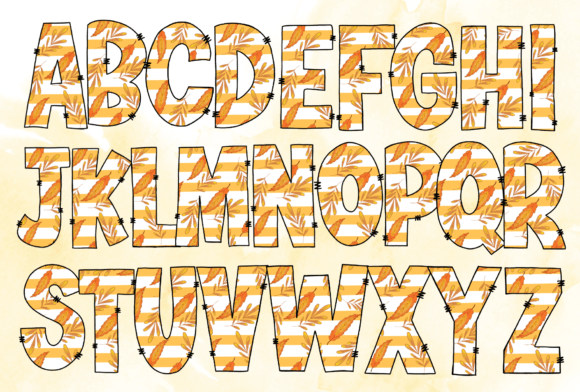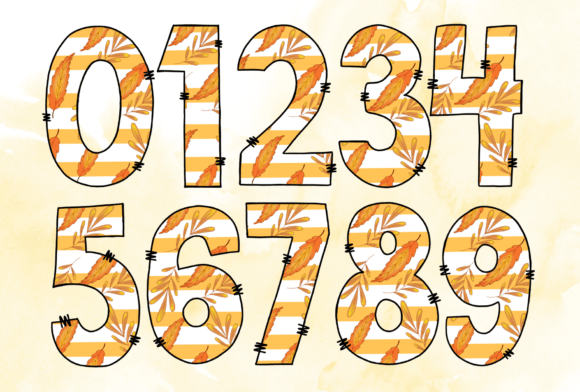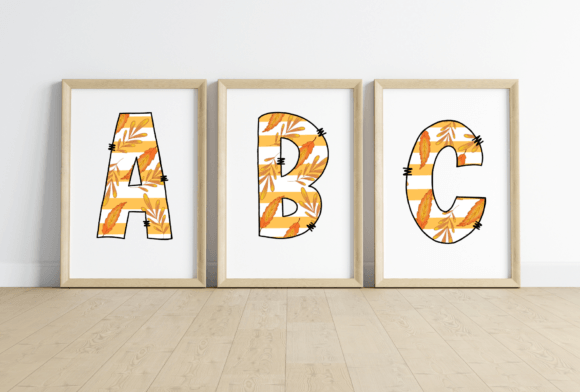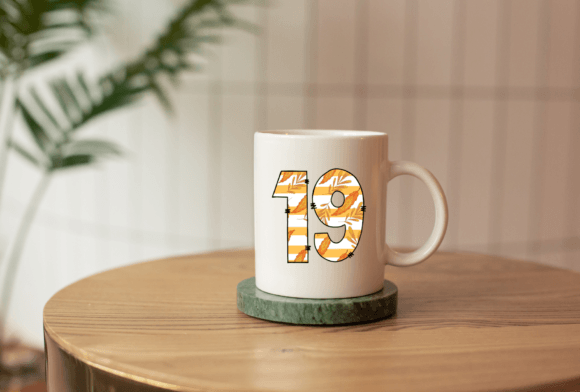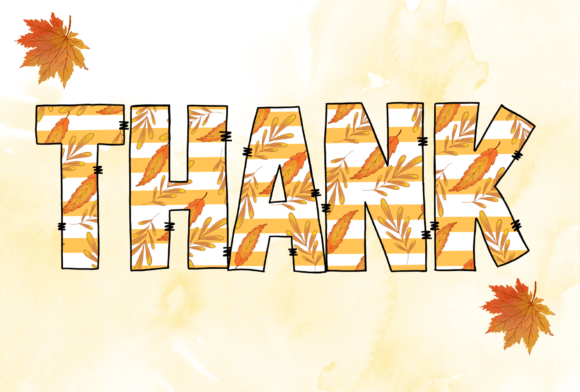
Introducing AUTUMN CUTE: The Perfect Font for Fall Season Decorations
As the leaves change colors and the air grows crisper, designers and crafters alike start looking for ways to capture the essence of autumn in their work. One of the most effective ways to do this is through typography, and that’s where AUTUMN CUTE comes in – a charming decorative font that’s perfect for the fall season.
What is AUTUMN CUTE?
AUTUMN CUTE is a delightful font that combines elegant lettering with colorful fall leaves, creating a warm and festive look that’s ideal for seasonal projects, invitations, and decorations. Each letter is meticulously adorned with intricate designs of fall leaves in shades of orange, red, yellow, and brown, evoking the cozy feelings of autumn.
Key Features of AUTUMN CUTE
• Decorative Letters: Every letter in the AUTUMN CUTE font is uniquely designed with colorful fall leaves, adding a touch of autumnal charm to any project.
• Seasonal Appeal: The font’s fall theme makes it perfect for seasonal projects, from Halloween invitations to Thanksgiving decorations.
• Elegant and Playful: AUTUMN CUTE strikes the perfect balance between elegance and playfulness, making it suitable for a wide range of applications, from formal invitations to casual crafts.
• Easy to Use: The font is designed to be user-friendly, allowing designers and crafters to easily incorporate it into their work, whether it’s for digital use or printing.
Uses for AUTUMN CUTE
The versatility of AUTUMN CUTE makes it a valuable addition to any designer’s or crafter’s toolkit. Here are some ideas for using this charming font:
• Seasonal Invitations: Add a touch of autumn charm to your invitations for fall parties, Halloween events, or Thanksgiving gatherings.
• Fall Decorations: Use AUTUMN CUTE to create eye-catching decorations for your home or office, such as banners, garlands, or wall art.
• Craft Projects: Incorporate the font into your fall-themed craft projects, such as scrapbooking, card making, or DIY gifts.
• Digital Designs: Use AUTUMN CUTE in your digital designs, including social media graphics, blog posts, or website headers, to give them a seasonal touch.
Tips for Using AUTUMN CUTE
To get the most out of AUTUMN CUTE, here are a few tips:
• Mix and Match: Combine AUTUMN CUTE with other fonts to create interesting contrasts and add depth to your designs.
• Play with Colors: While the font comes with a set color scheme, don’t be afraid to experiment with different colors to match your project’s theme.
• Keep it Simple: Sometimes, less is more. Use AUTUMN CUTE sparingly to highlight key elements in your design.
AUTUMN CUTE is more than just a font – it’s a way to bring the warmth and beauty of autumn into your designs and crafts. With its charming decorative letters and festive fall theme, it’s the perfect tool for anyone looking to add a touch of seasonal charm to their work. Whether you’re a designer, crafter, or simply someone who loves the fall season, AUTUMN CUTE is sure to inspire your creativity and help you create stunning autumn-themed projects.
Embrace the beauty of autumn in your designs with AUTUMN CUTE, and let the charm of the season shine through in every letter.